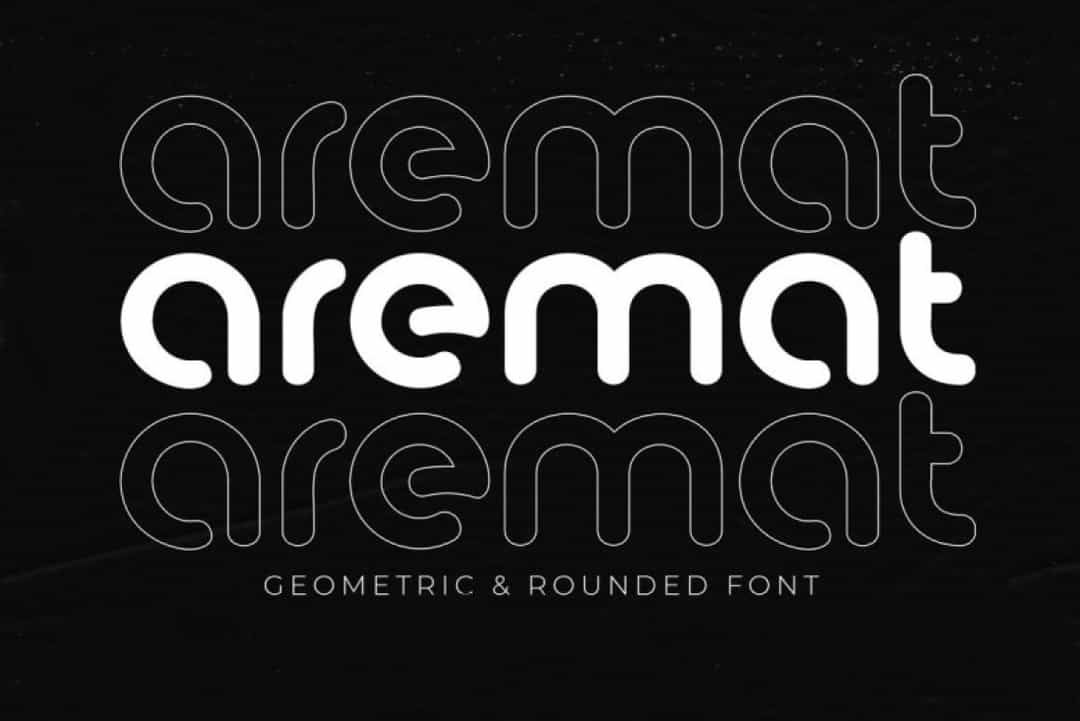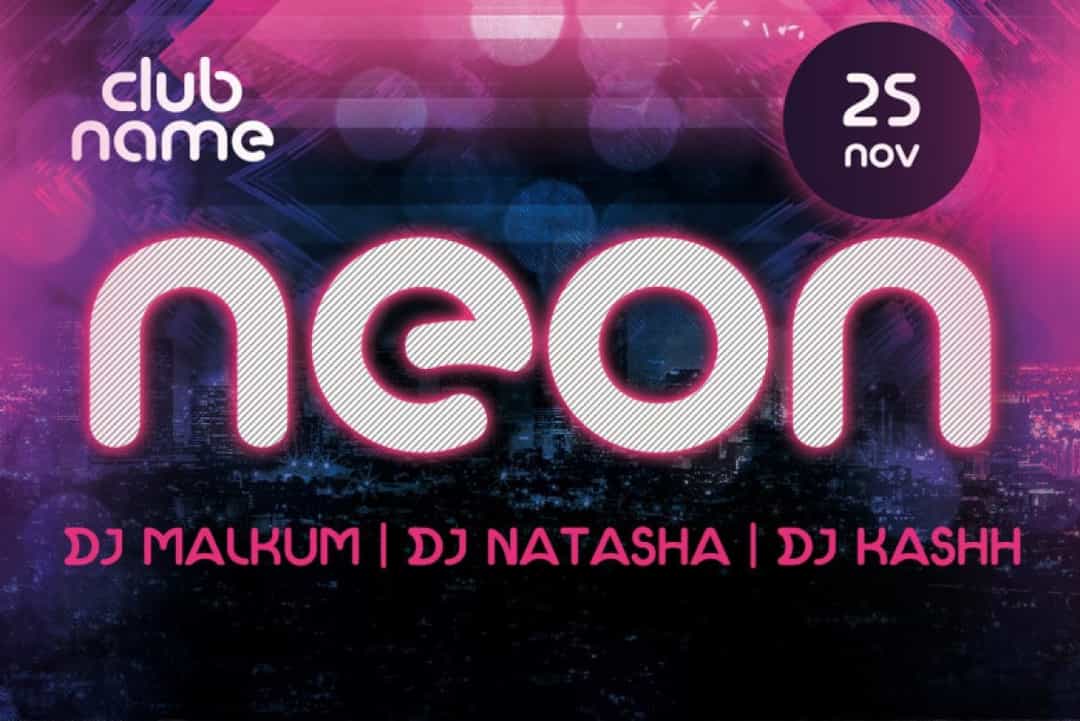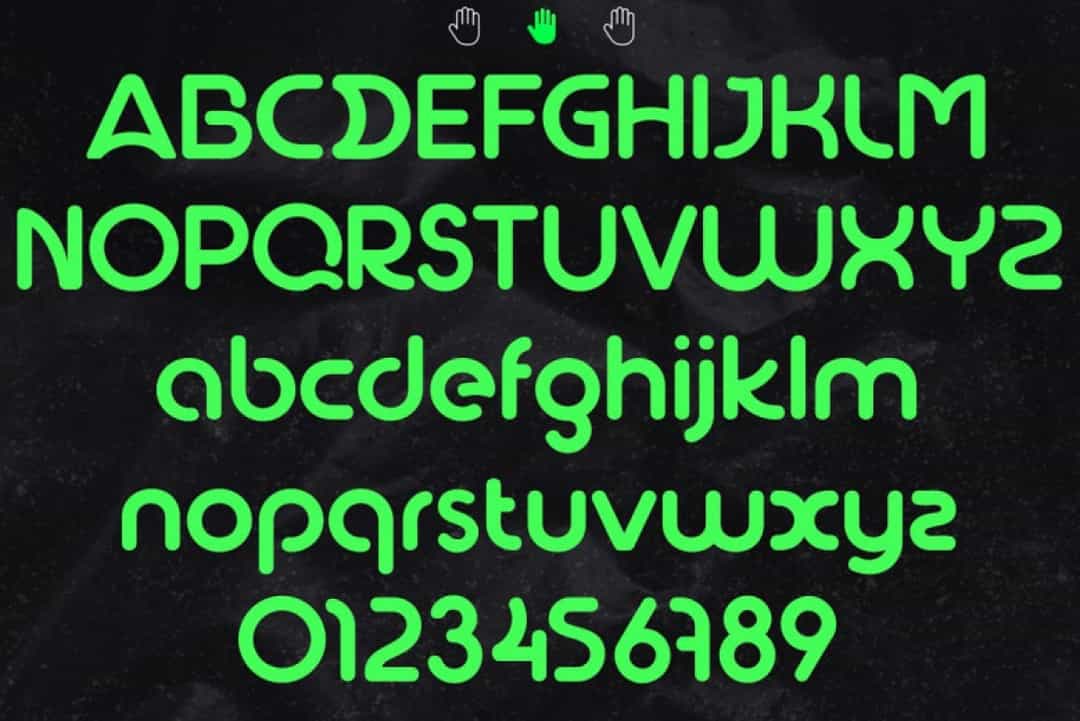
Arematis is a fresh and simple sans font that has been made to be appropriate for titles, headlines, logos and posters. It has a very contemporary look yet it is suitable for both modern and old school settings.